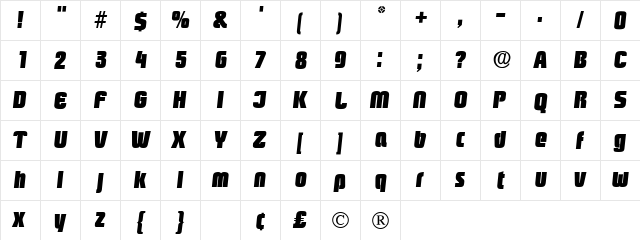
Boozle Display SSi Italic
Design Context for Boozle Display SSi Typeface
Boozle Display SSi brings ornamental detail and strong personality to headlines and identities, where visual impact matters more than quiet functionality. The dynamic lean of this cut emphasises speed and emphasis in any layout.
Font Pairing: Pair with a clean neutral sans-serif for body copy to let Boozle Display SSi's character lead without overwhelming the composition.
Pro Tip: Use Boozle Display SSi exclusively at display sizes — it was designed to be seen, not read at length. Let a neutral companion handle body copy.